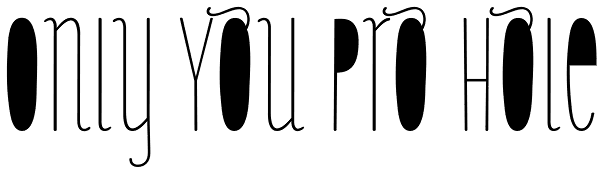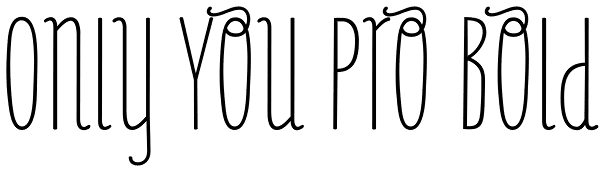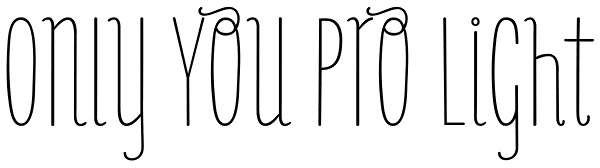
Only You Pro
Only You is handmade, and specially romantic. It was made to brighten your projects, turning everything more beautiful. The special encounter between uppercase letters and lowercase letters is perfect. Only You is unicase, with 888 glyphs, and...